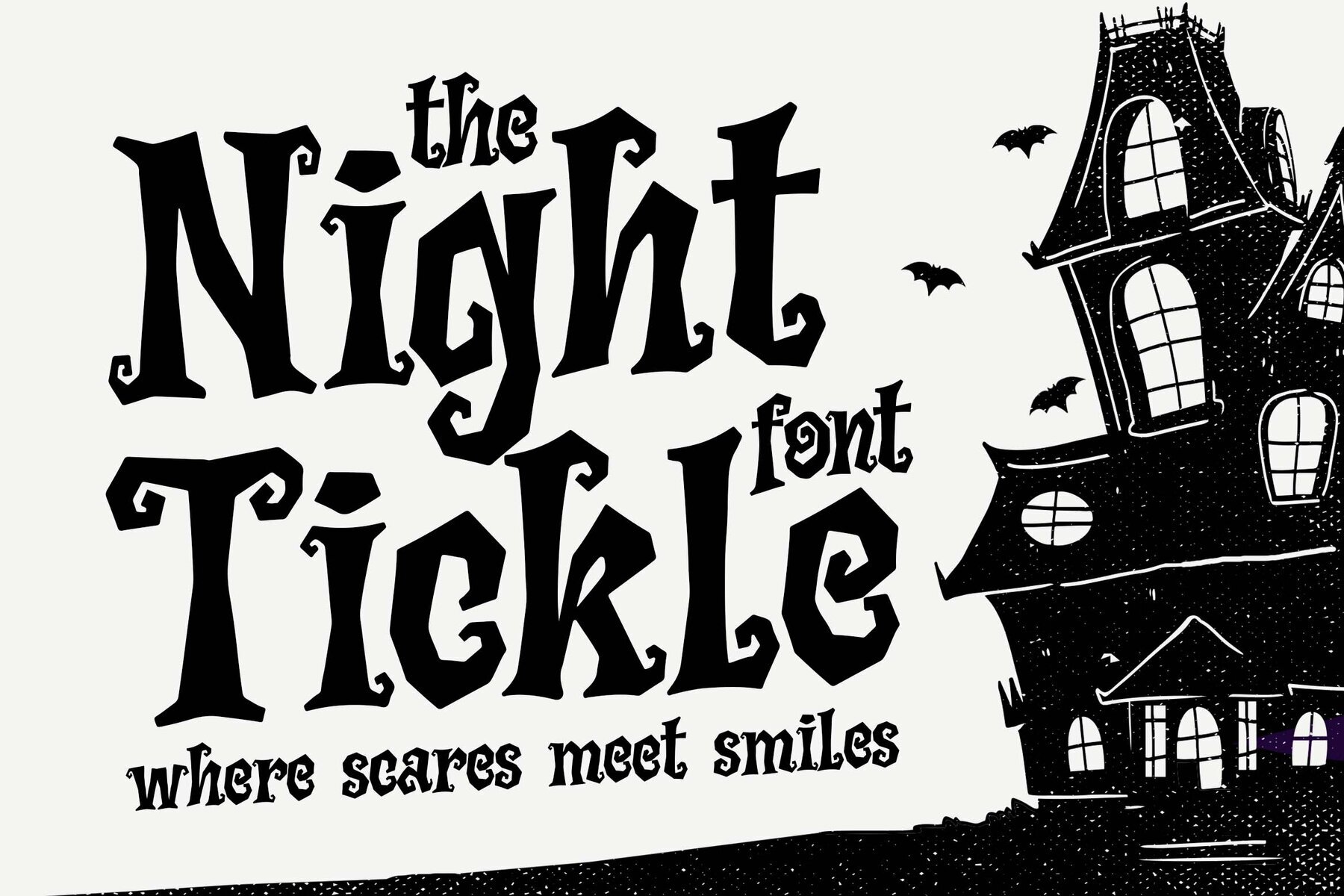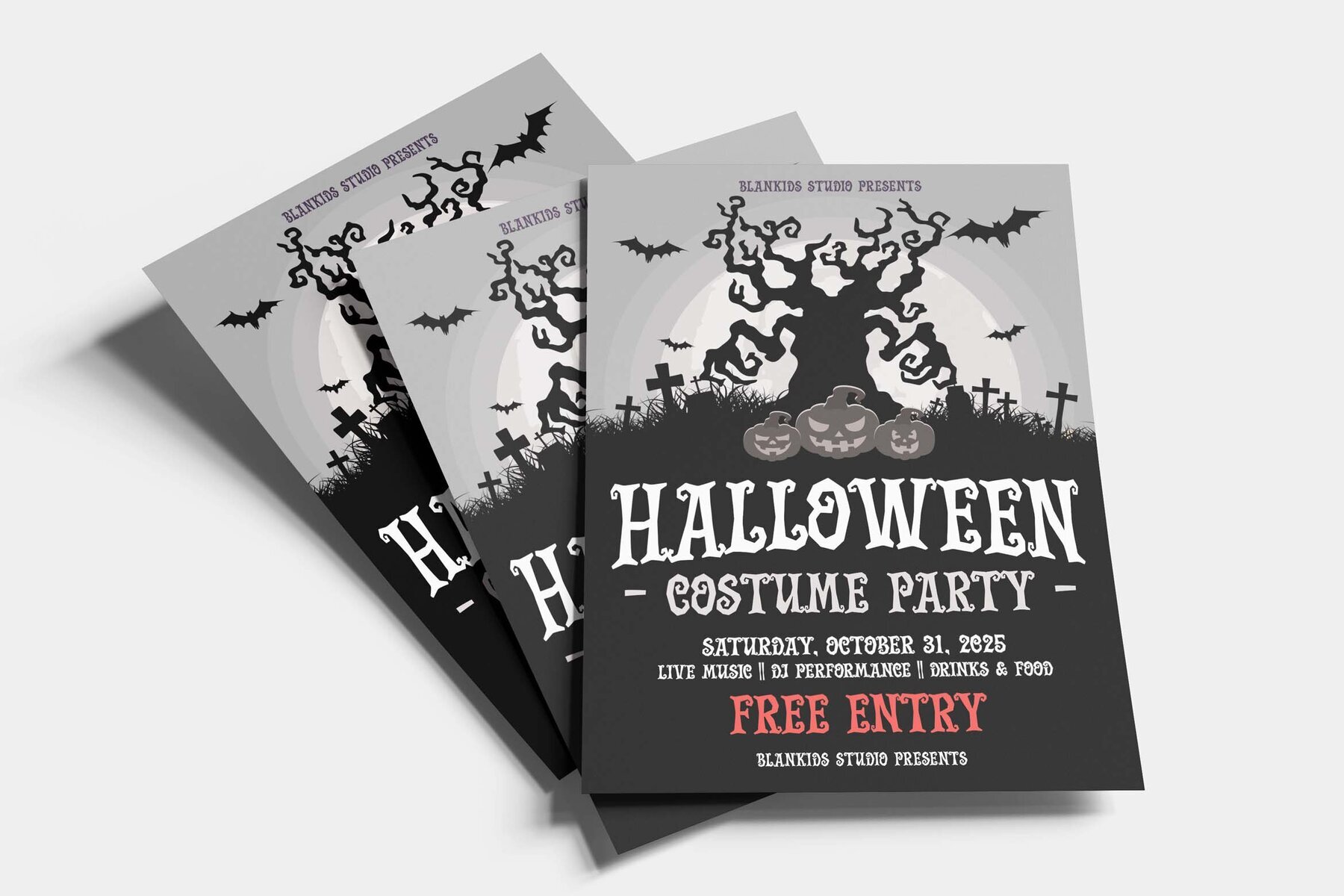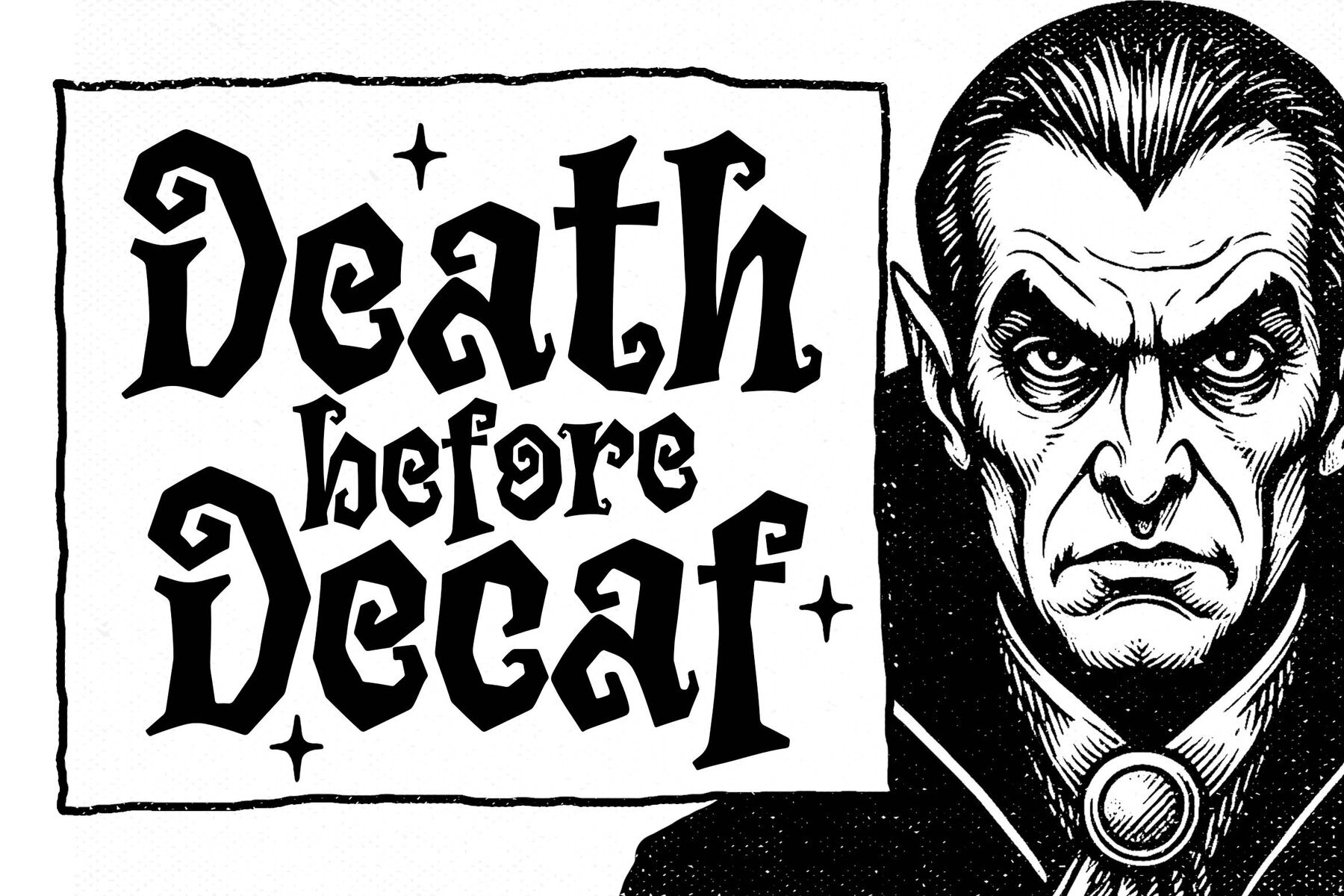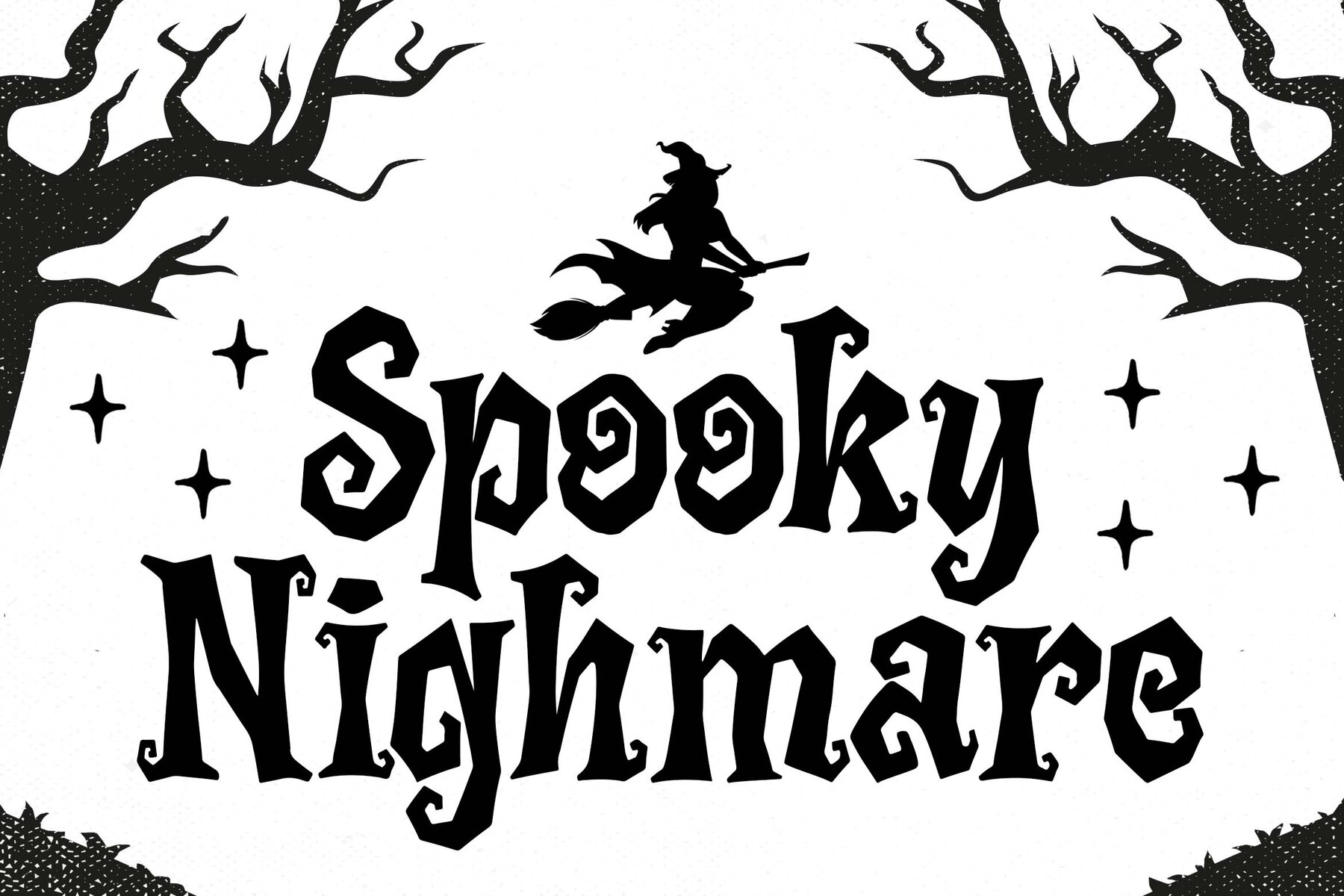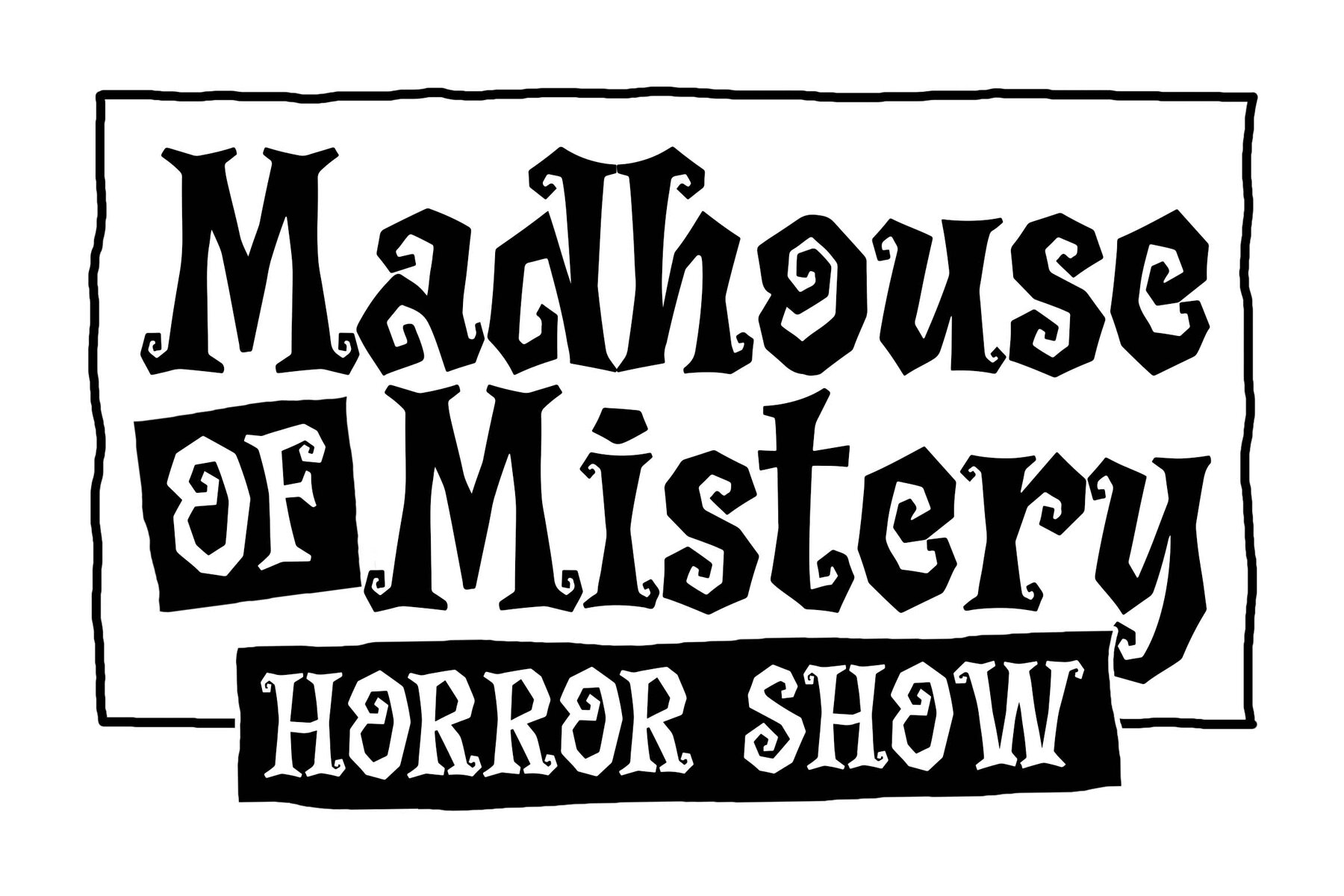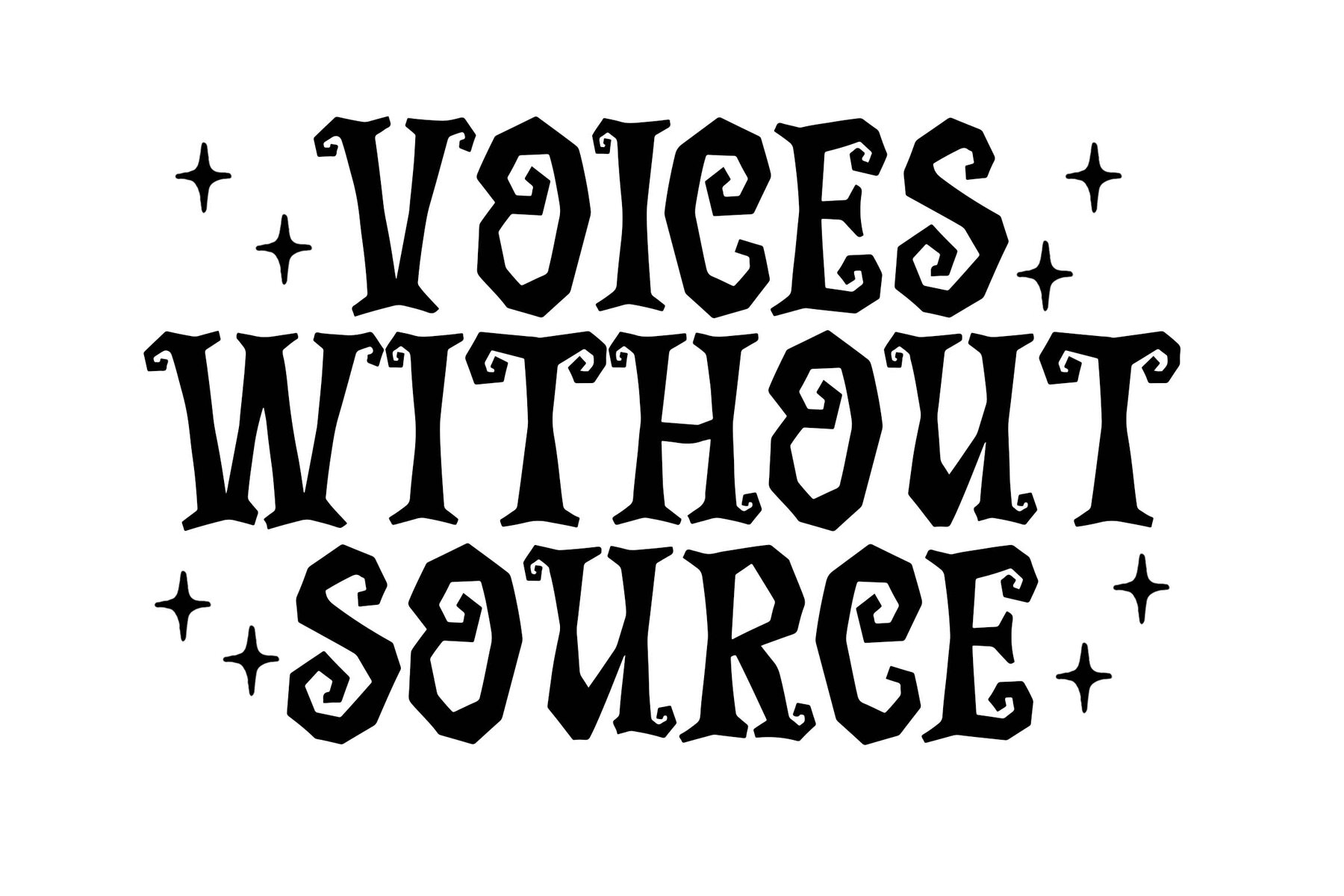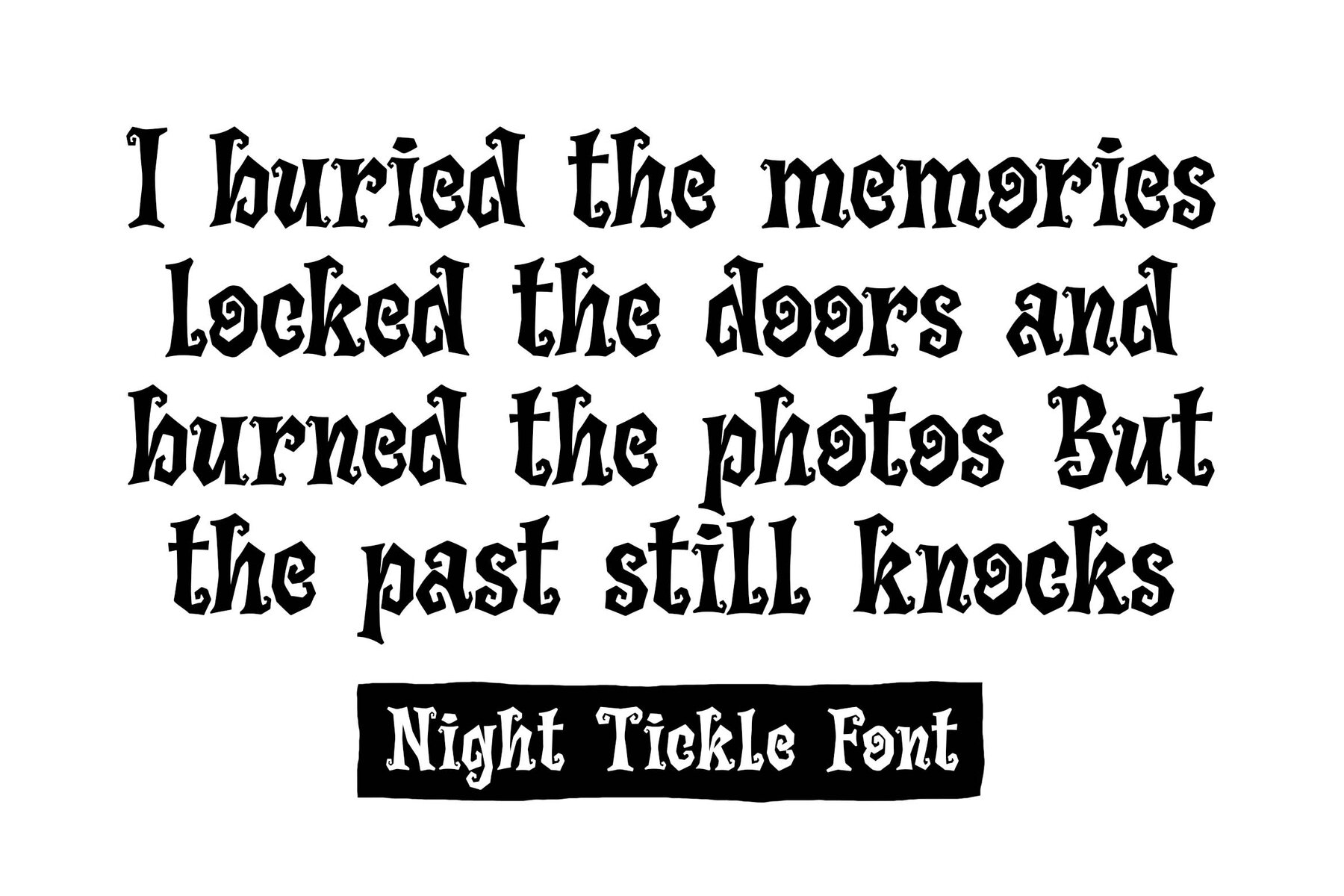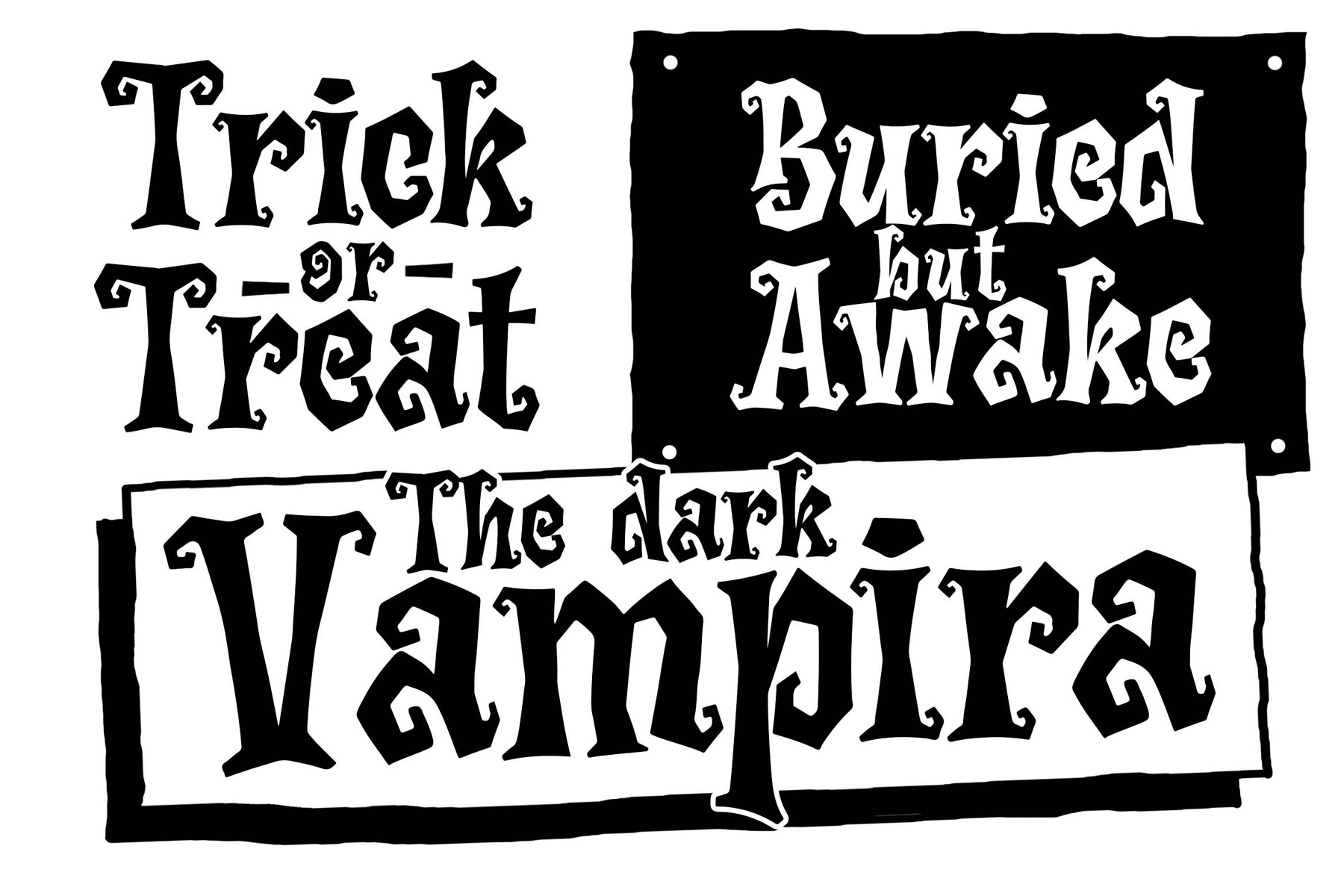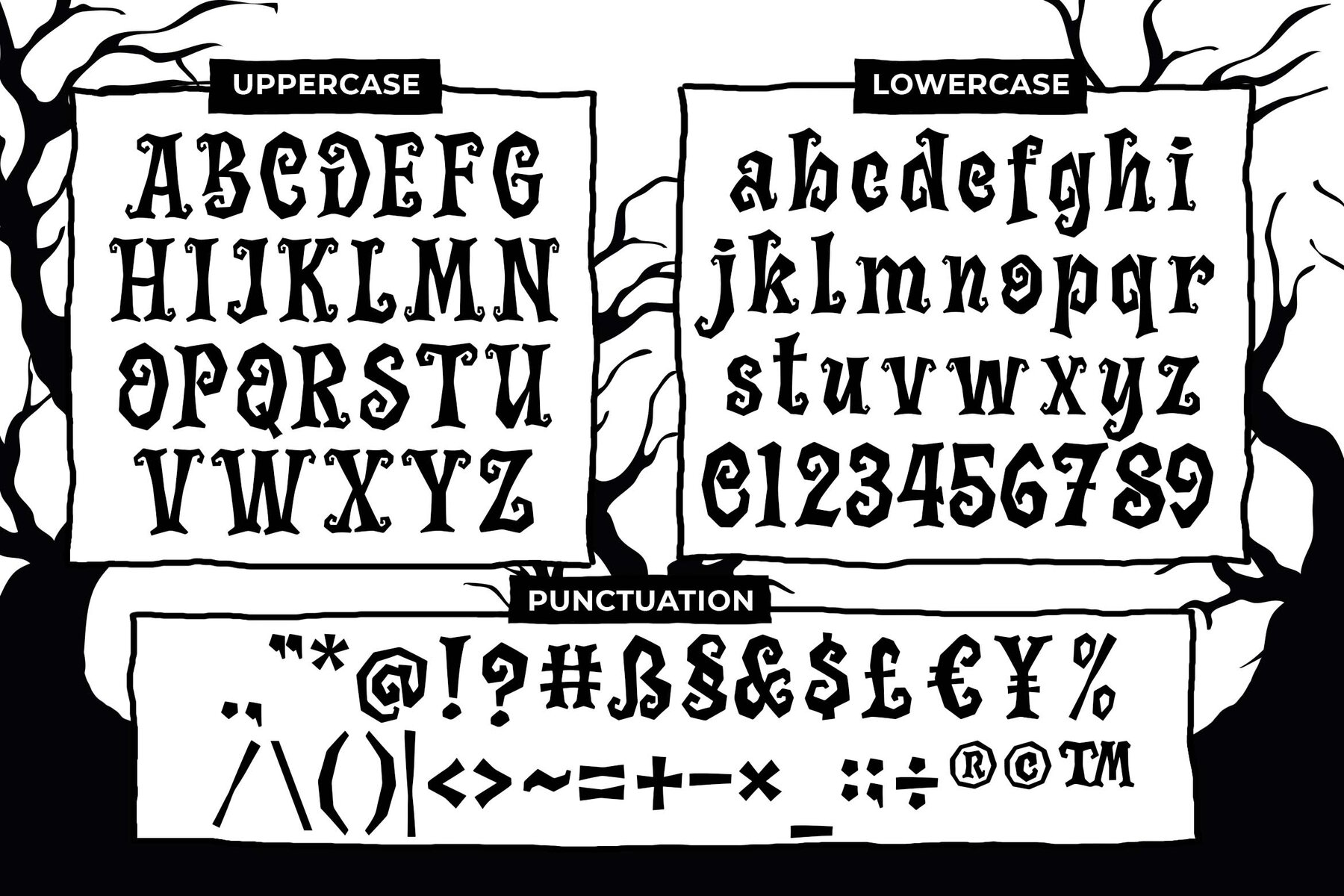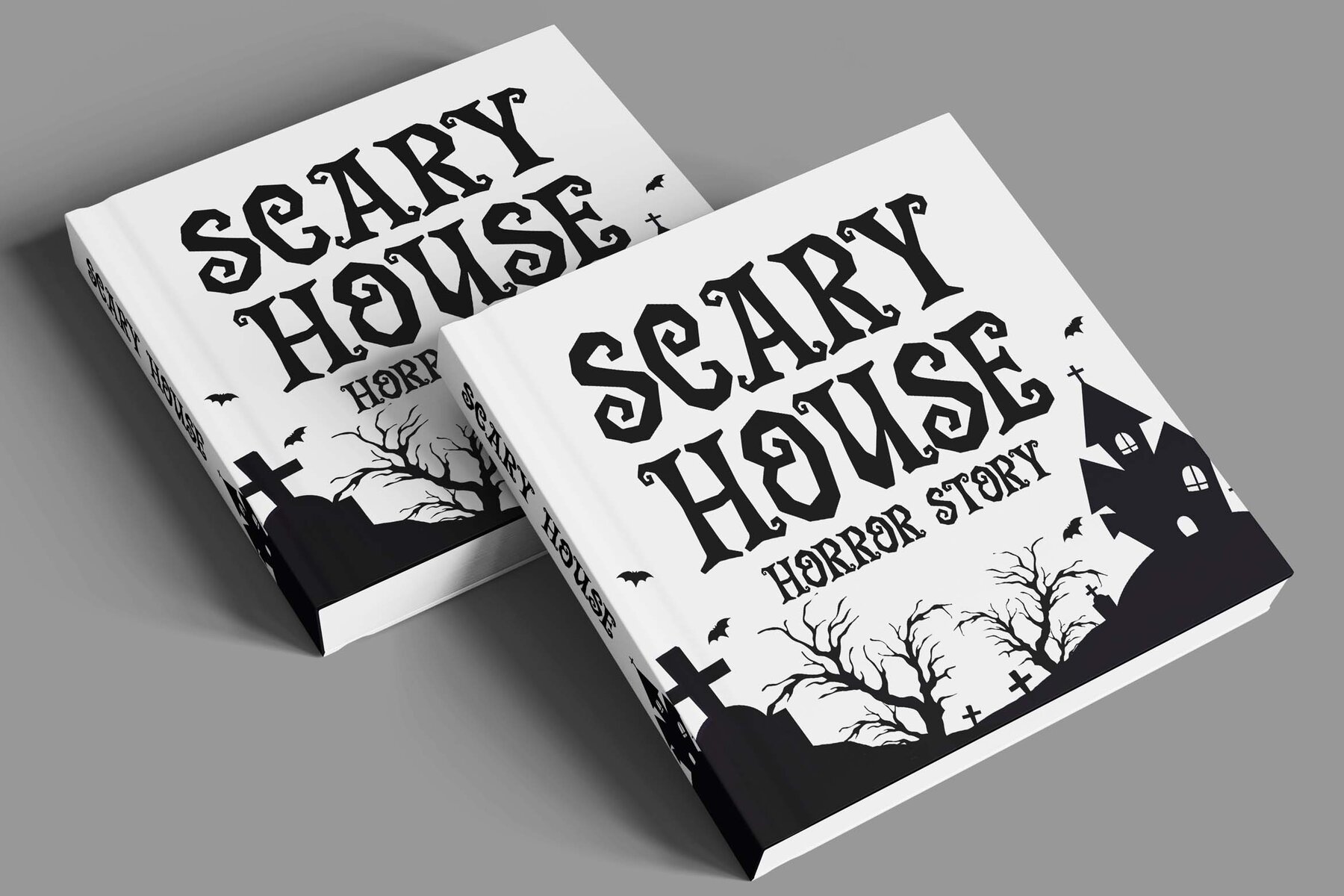
Night Tickle Font
Night Tickle
Introducing Night Tickle—a font that seamlessly weaves playful horror into your projects. Designed by Blankids Studio, this typeface brings an intriguing blend of whimsy and spookiness, a perfect fit for diverse branding needs. From logotypes to product packaging, Night Tickle adds a unique touch to all your professional projects. Each character imbues a distinctive horror-playful style, inviting inspiration and creativity. With extensive support from graphic software, designers can effortlessly unlock the full potential of Night Tickle. Immerse yourself in the suspenseful charm of this font and let your designs captivate and enchant.Night Tickle: A Horror Playful Typeface for Creative Branding
Artistic Features